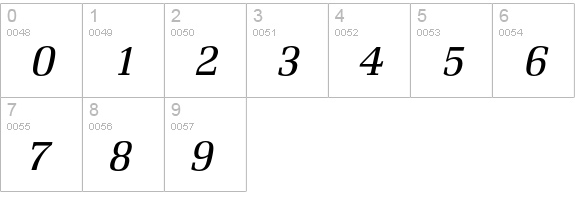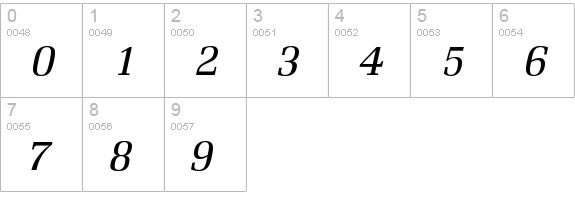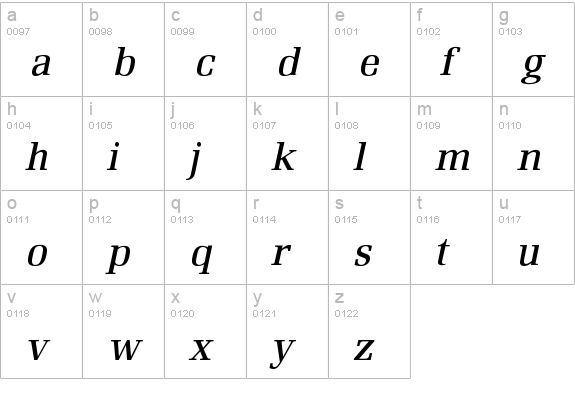
Renault Light Italic Font Details
Renault Light Italic is a refined, elegant, italic variant in the Renault typeface family \xE2\x80\x94 well suited to elegant body text, refined sub-headings, and luxury branding.
Introducing Renault Light Italic font, a sleek and sophisticated typeface that effortlessly combines elegance with a touch of modernity. With its delicate curves and slender strokes, this font exudes a sense of refined beauty, making it perfect for projects that require a touch of class. Renault Light Italic font is designed to captivate and inspire, adding a subtle yet powerful element to any design. Its graceful letterforms effortlessly flow across the page, creating a harmonious balance that catches the eye and commands attention. Whether used in branding, advertising, or editorial work, this font will elevate your designs to new heights. But what sets Renault Light Italic font apart is not just its impeccable design, but the fact that it is available for free. Yes, you read that right - this stunning typeface can be yours without spending a dime. Thanks to FontsMarket.com, you can easily download Renault Light Italic font and start using it in your projects right away. So why wait? Embrace the beauty and versatility of Renault Light Italic font and take your designs to the next level. With its free availability and irresistible charm, there's no reason not to give this font a try. Download Renault Light Italic font today and unlock a world of endless design possibilities.